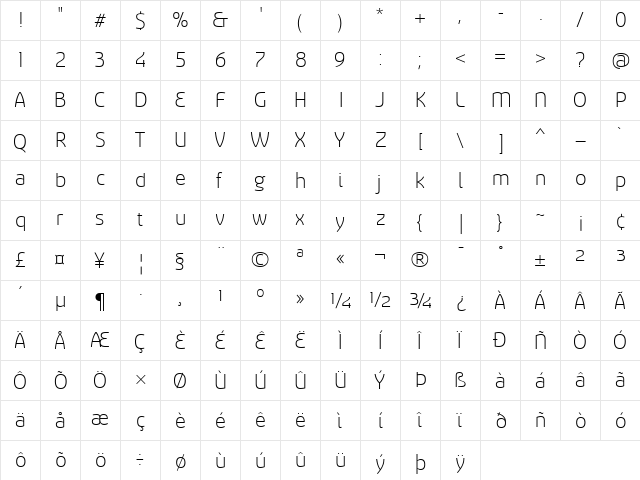
Sancoale Light
Design Context for Sancoale Typeface
Sancoale takes a measured approach to typography — its balanced proportions and neutral character make it a reliable workhorse for both digital and print work. The delicate stroke weight brings airiness and refinement to layouts.